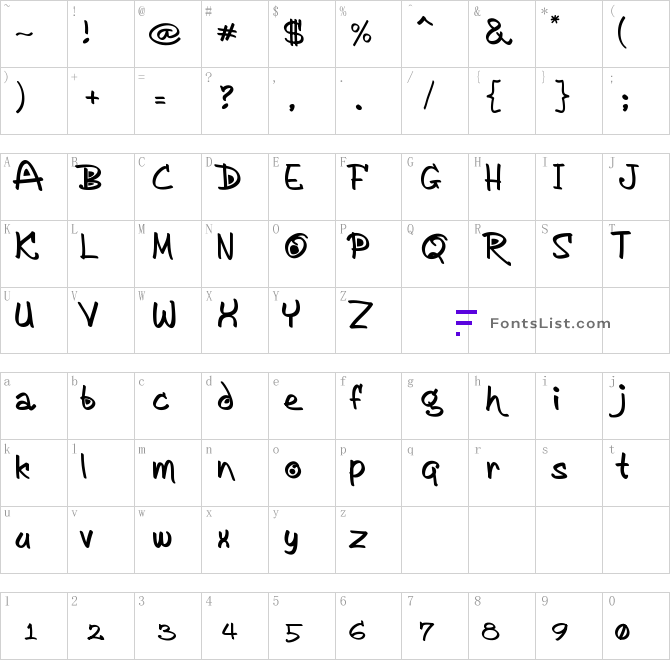
- Font Name:AykaPoTz
AykaPoTz.ttf is a very beautiful artistic font, AykaPoTz.ttf is widely used in the design and printing of various books and pictures,AykaPoTz.ttf has a strong visual impact,AykaPoTz.ttf is a commonly used font in newspapers, magazines and books, and is used in posters, e-commerce Poster design, store design, logo design, font design and other fields.AykaPoTz.